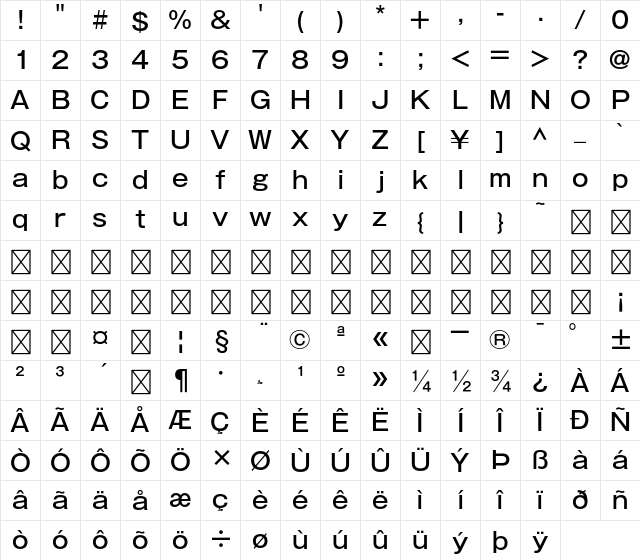
U-OTF Gothic MB101 Upr M
Style: M
Complete U-OTF Gothic MB101 Upr M glyph index. Displaying only characters natively supported by U-OTF Gothic MB101 Upr M font.
Design Context for U-OTF Gothic MB101 Upr
U-OTF Gothic MB101 Upr takes a clean, functional approach - its unadorned letterforms prioritise legibility and work reliably across screen and print environments.
Font Pairing: Works well alongside a characterful serif or display font that can carry the expressive load while U-OTF Gothic MB101 Upr handles the functional copy.
Pro Tip: Use U-OTF Gothic MB101 Upr for UI labels, navigation, and short-form body copy where clean legibility is the priority.